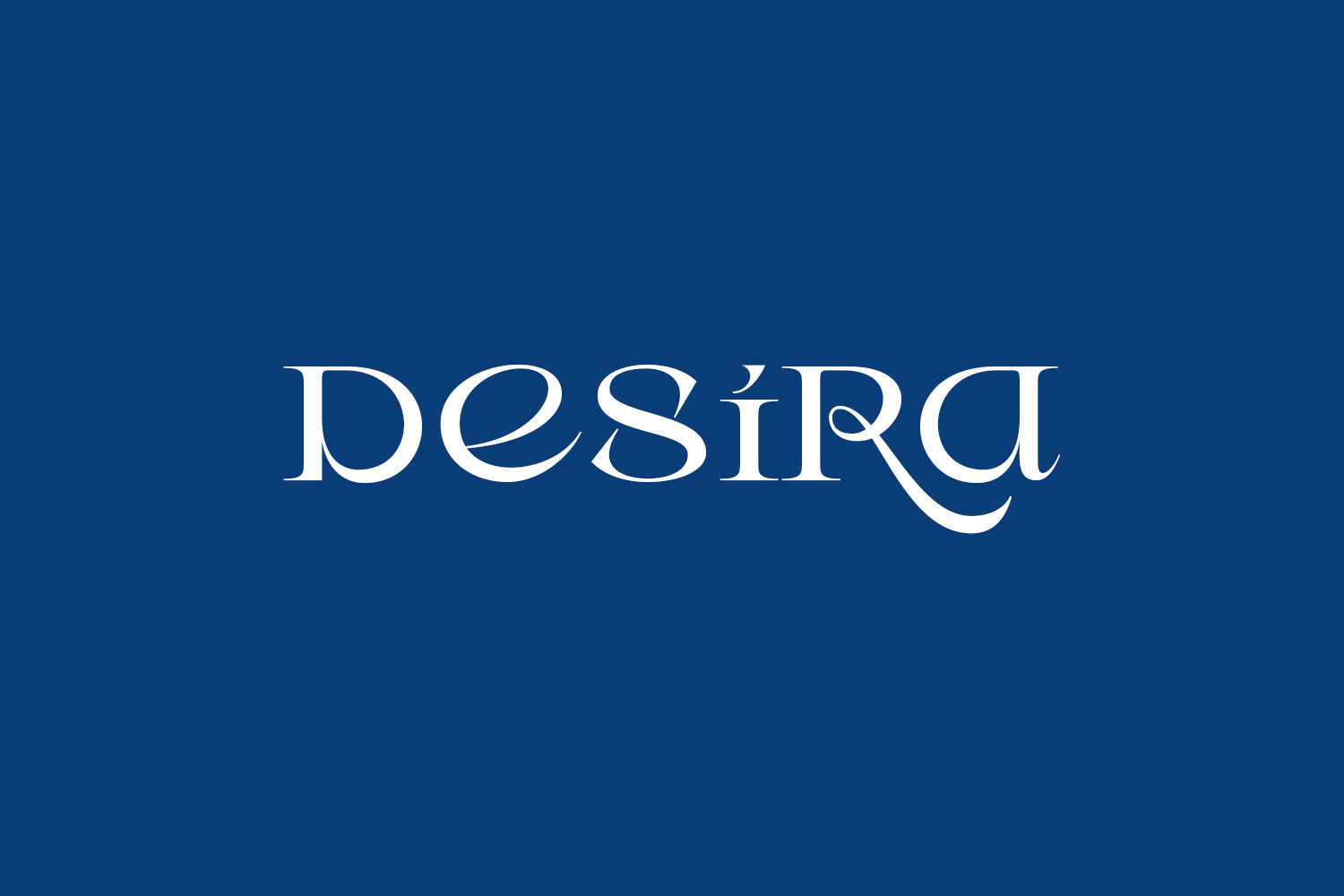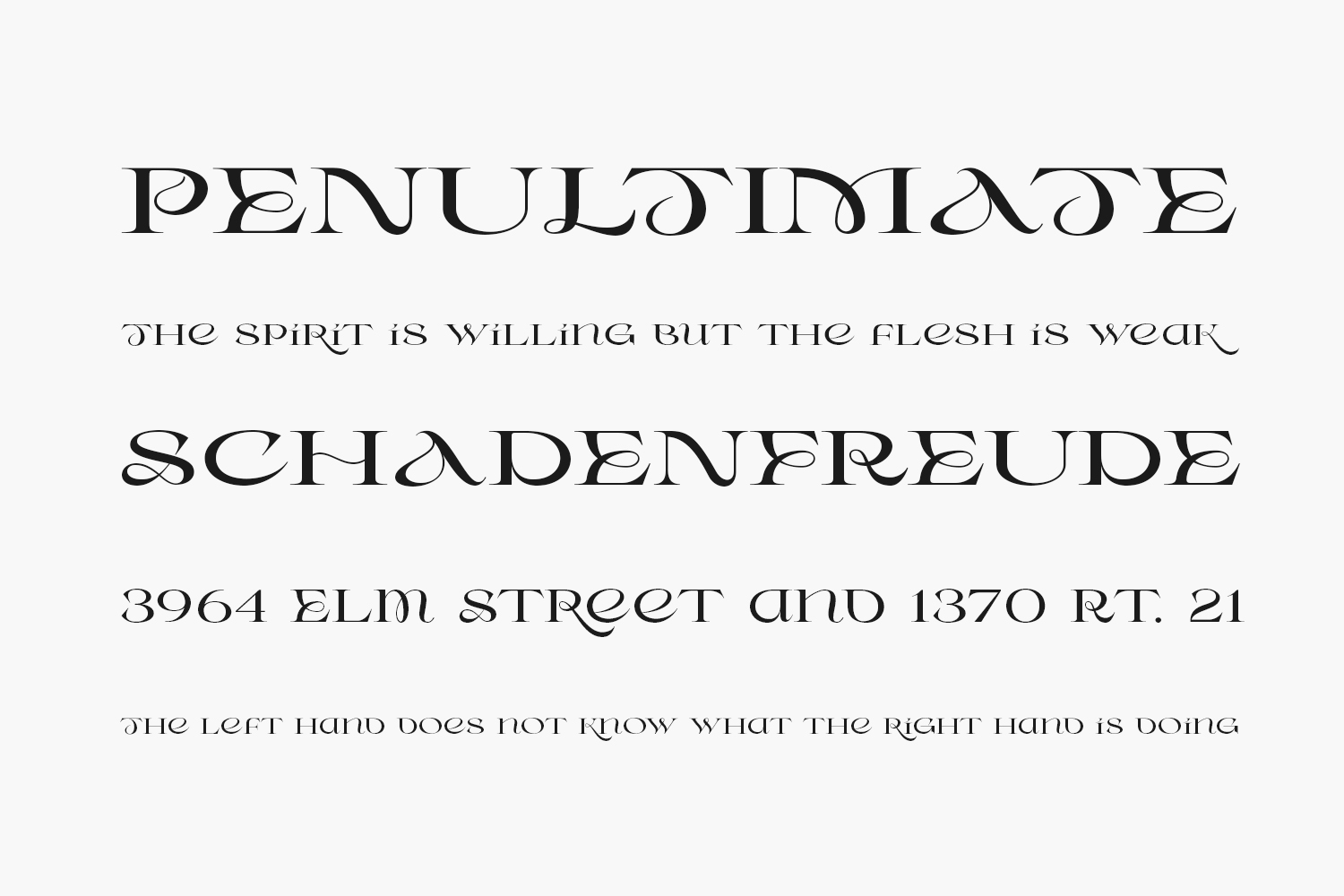
Desira Free Font is a wavy and trendy serif font. It is the best choice for creating eye-catching logos, branding, and quotes. Every letter has a unique and beautiful touch, which will make your design come alive.
Designed by Saridezra